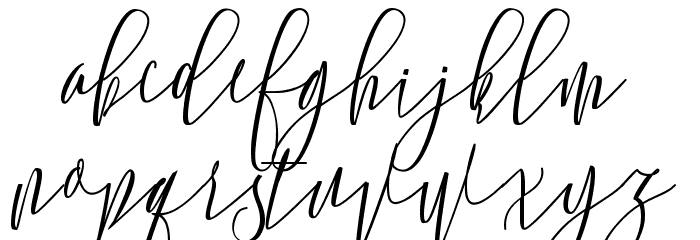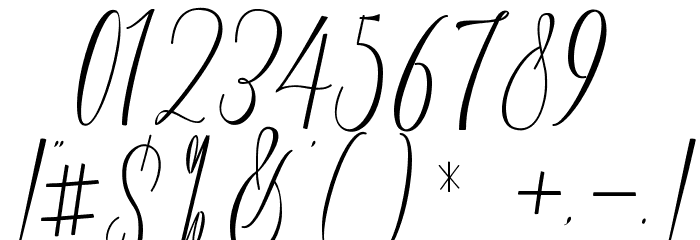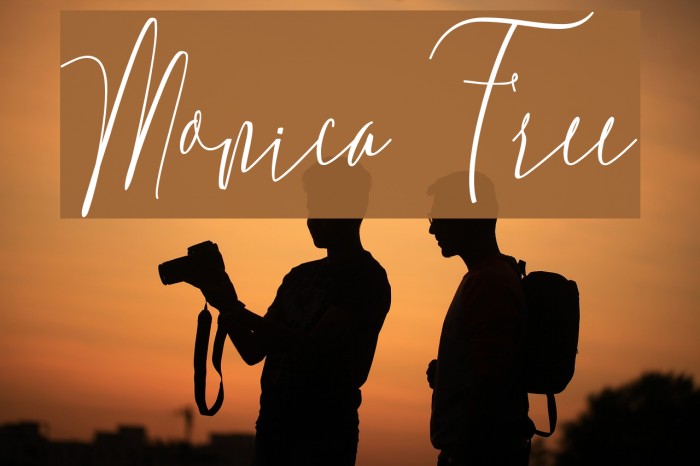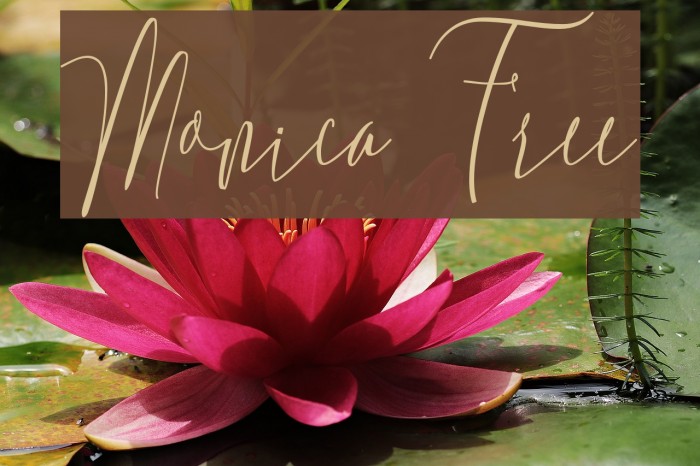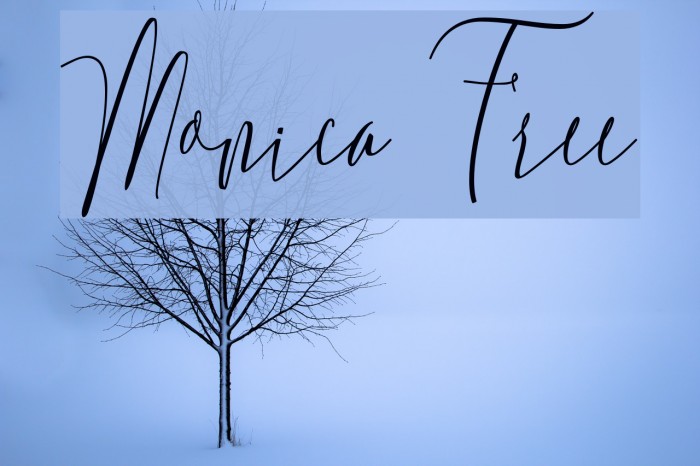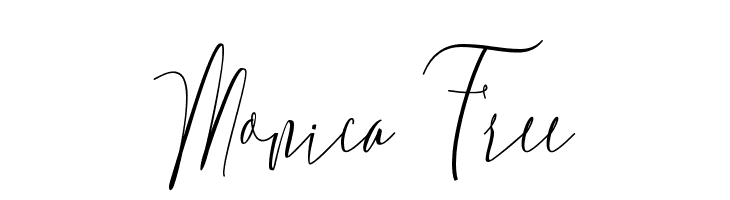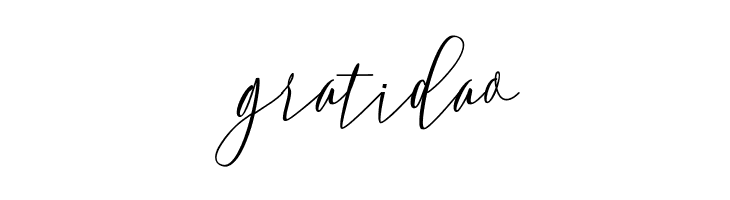
Monica Free Font
This elegant script font features a fluid and graceful style, characterized by its sweeping curves and delicate strokes. The uppercase letters are tall and slender, with a slight slant that adds a sense of motion and sophistication. The lowercase letters maintain a consistent flow, with loops and flourishes that enhance its handwritten appeal. Numbers and special characters are designed to complement the overall aesthetic, maintaining the same graceful lines and curves. This font exudes a sense of elegance and charm, making it ideal for projects that require a personal touch.
A graceful and elegant script font with fluid, sweeping curves.
- Proposed Projects: Ideal for wedding invitations, greeting cards, branding, and elegant packaging designs.
- Overall Style: Elegant
- Use Case: Logos, Invitations, Decorative text